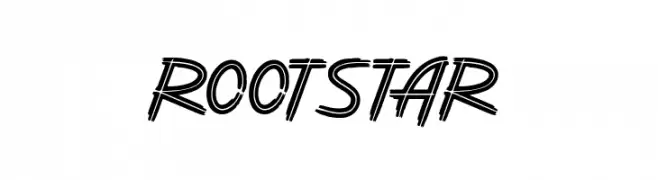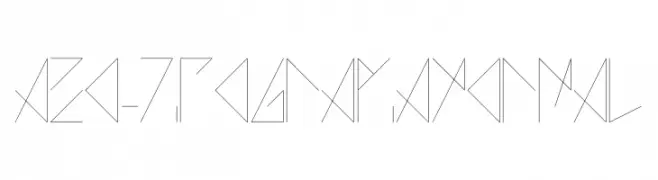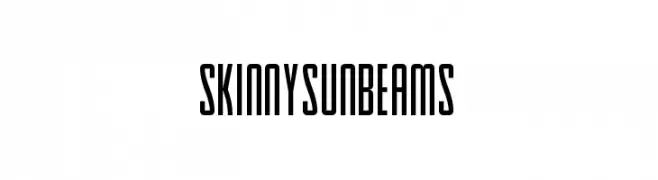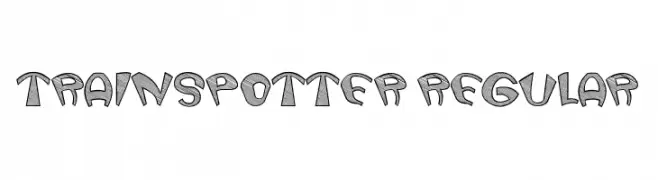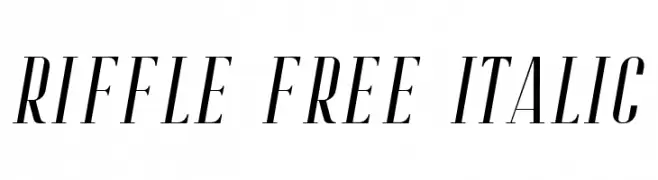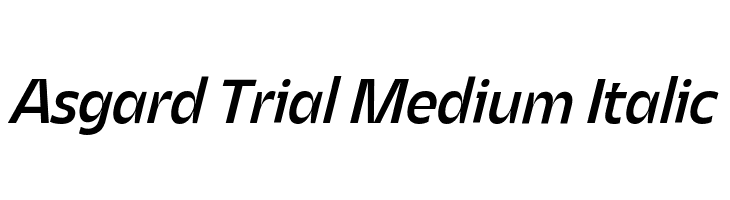
A playful, informal handwritten font with smooth, flowing curves.
A bold, hand-drawn font with a dynamic and energetic style.
A geometric, minimalistic font with sharp angles and straight lines.
A tall, narrow font with consistent stroke width and a modern, minimalist style.
A bold, geometric font with a modern, futuristic style.
A playful, hand-drawn font with bold outlines and intricate patterns.
A playful, casual handwritten font with smooth curves and uniform strokes.
A bold, expressive handwritten font with a strong presence.
A bold, playful font with cartoon-like, exaggerated characters.
An elegant italic font with medium contrast and sleek, condensed letterforms.